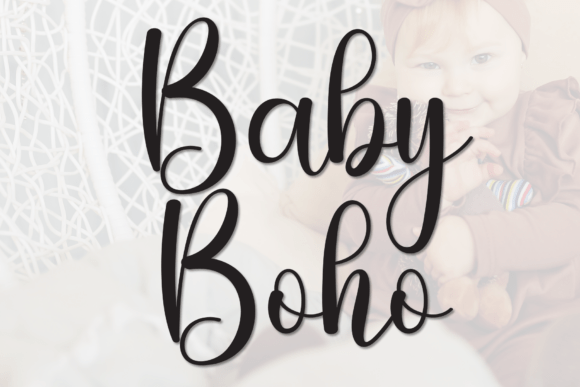
Unleashing the Artistic Flair of the Baby Boho Font
As designers, we’ve all been there – staring at a blank canvas, waiting for inspiration to strike. It’s that moment when the perfect font can elevate an entire design from ordinary to extraordinary. And that’s exactly where the Baby Boho Font comes in – a stylish script font that infuses any project with artistic flair and contemporary elegance.
Whether you’re crafting a logo, designing an invitation, or creating social media graphics, the Baby Boho Font is the perfect addition to your toolkit. Its fluid brush strokes, dynamic curves, and expressive letterforms capture the essence of hand-painted calligraphy with a modern twist, making it a valuable asset for designers seeking to add a creative and sophisticated touch to their work.
With its natural flow and vibrant character, the Baby Boho Font delivers both visual impact and versatility, making it an essential tool for any designer looking to take their designs to the next level.
Baby Boho Font Key Features
- Unique Characteristics: The Baby Boho font features a whimsical, hand-drawn design with a mix of cursive and script elements, giving it a unique and feminine touch.
Baby Boho Font Review
I recently had the chance to work with the Baby Boho Font, and I’m here to share my honest thoughts on this unique font. Overall, I found it to be a refreshing addition to my design toolkit. ✨
Here are some things that work well with the Baby Boho Font:
- Handwritten feel: The font has a beautiful, handwritten quality that adds a touch of whimsy to any design.
- Versatility: Baby Boho Font can be used for a wide range of projects, from invitations to social media graphics.
- Expressive: The font’s irregularities make it perfect for conveying a sense of personality and emotion.
However, there are some limitations to keep in mind:
- Legibility: While the font is beautiful, it can be challenging to read at smaller sizes.
- Font pairing: Baby Boho Font may not pair well with more formal or traditional fonts, which could limit its use in certain designs.
Overall, I’m a fan of the Baby Boho Font, but I do think it’s best suited for projects that require a more casual or creative vibe. If you’re looking for a font to add some personality to your designs, Baby Boho Font is definitely worth checking out. ⚠️ Just be mindful of its limitations and use it in contexts where it will shine.
To get the most out of the Baby Boho Font, try using it in combination with other bohemian-inspired design elements, such as floral patterns and earthy colors.
Experiment with different font sizes and styles to create visual interest and emphasis.
The Baby Boho Font is perfect for:
- Bohemian-inspired branding and marketing materials
- Artistic and creative projects
Alternative Fonts to Baby Boho Font
Great Vibes is a beautiful script font perfect for creating a carefree and whimsical atmosphere. It’s ideal for headings, titles, and quotes in designs that require a touch of elegance and sophistication.
Comparison to Baby Boho Font: While Baby Boho Font has a more rustic and vintage feel, Great Vibes is more refined and modern. Great Vibes is better suited for designs that need a more polished look.
Ostrich Sans is a playful and modern sans-serif font that’s great for creating a fun and energetic vibe. It’s perfect for titles, headings, and body text in designs that require a touch of whimsy.
Comparison to Baby Boho Font: While Baby Boho Font has a more organic and hand-drawn feel, Ostrich Sans is more geometric and modern. Ostrich Sans is better suited for designs that need a more playful and youthful feel.